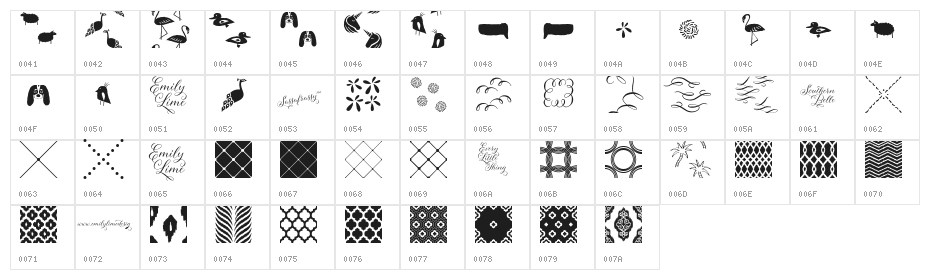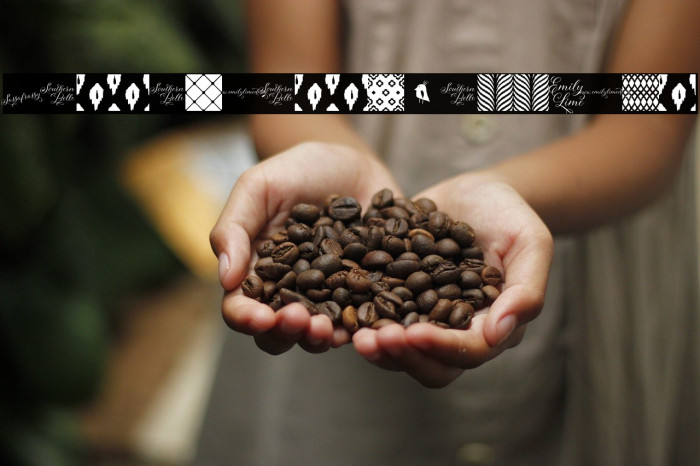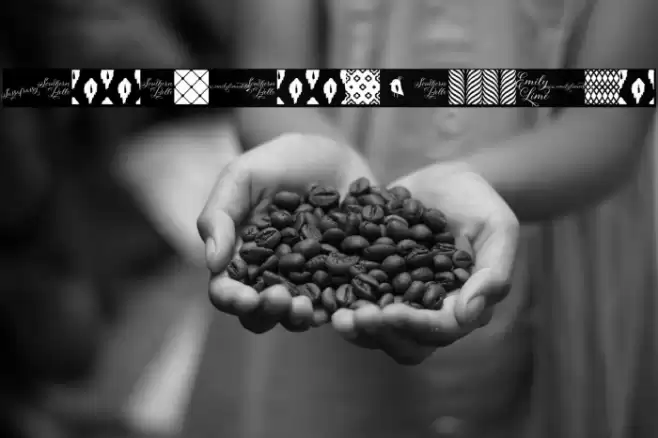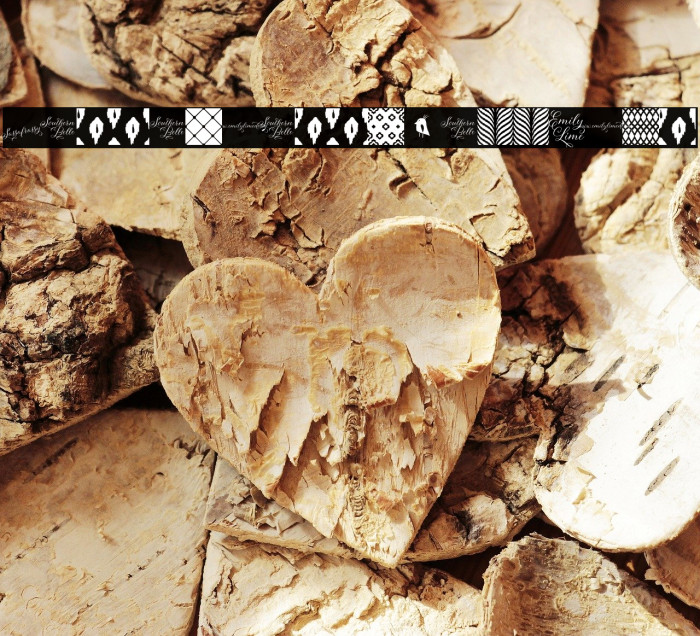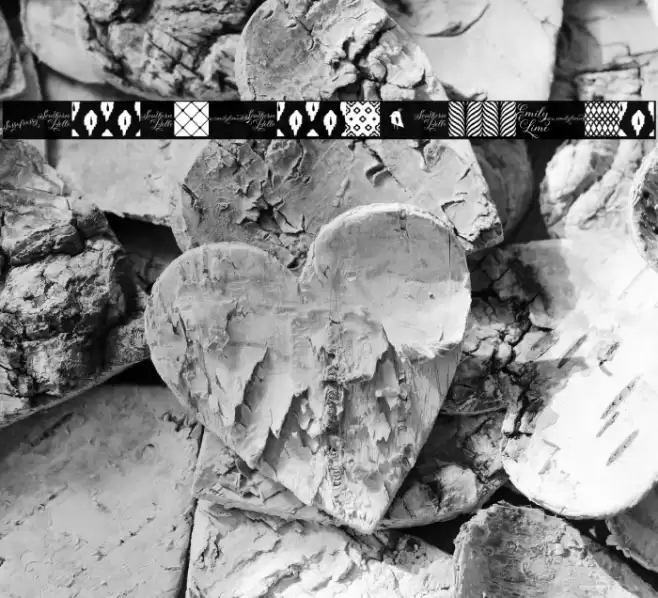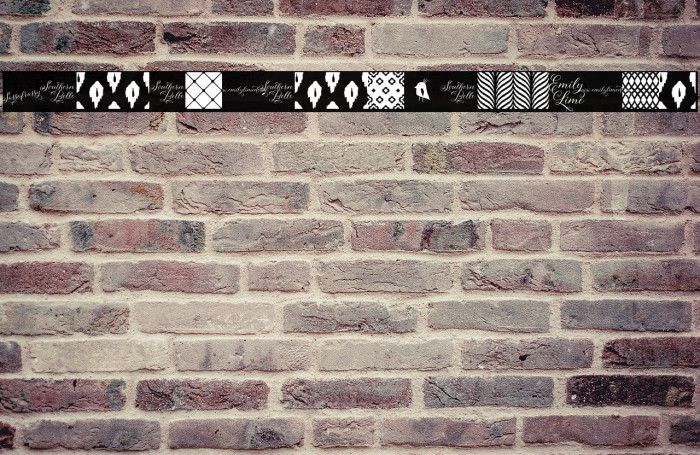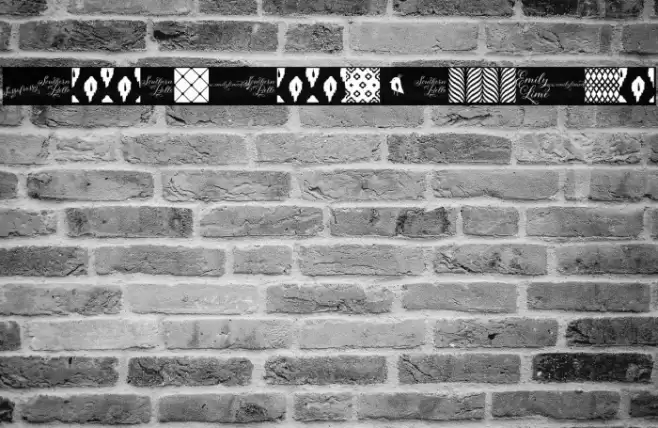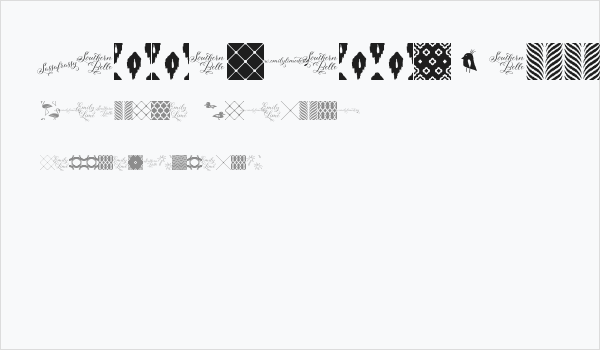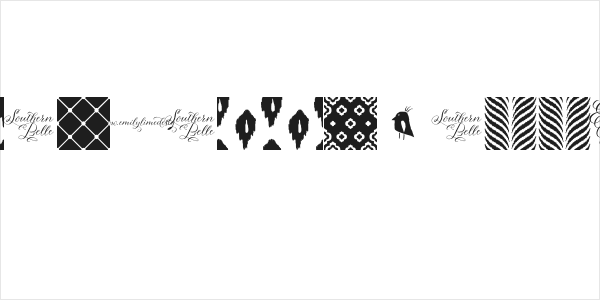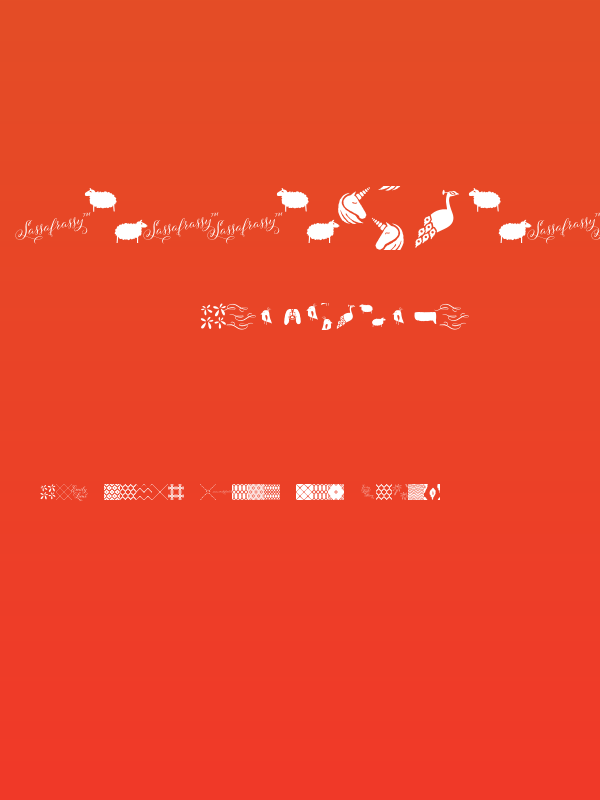
SassafrassyPatterns Font
SassafrassyPatterns Description
A decorative dingbat and pattern set featuring whimsical animal silhouettes, ornate script text, floral motifs, geometric borders, and intricate repeating patterns. The glyphs include playful illustrations and elegant flourishes, suitable for embellishing creative projects.
| Overall Style | Decorative, Whimsical, Ornate |
| Use Case | Borders, embellishments, logos, invitations, decorative accents. |
| Proposed Projects | Stationery, invitations, scrapbooking, branding, packaging, digital art, textile design. |